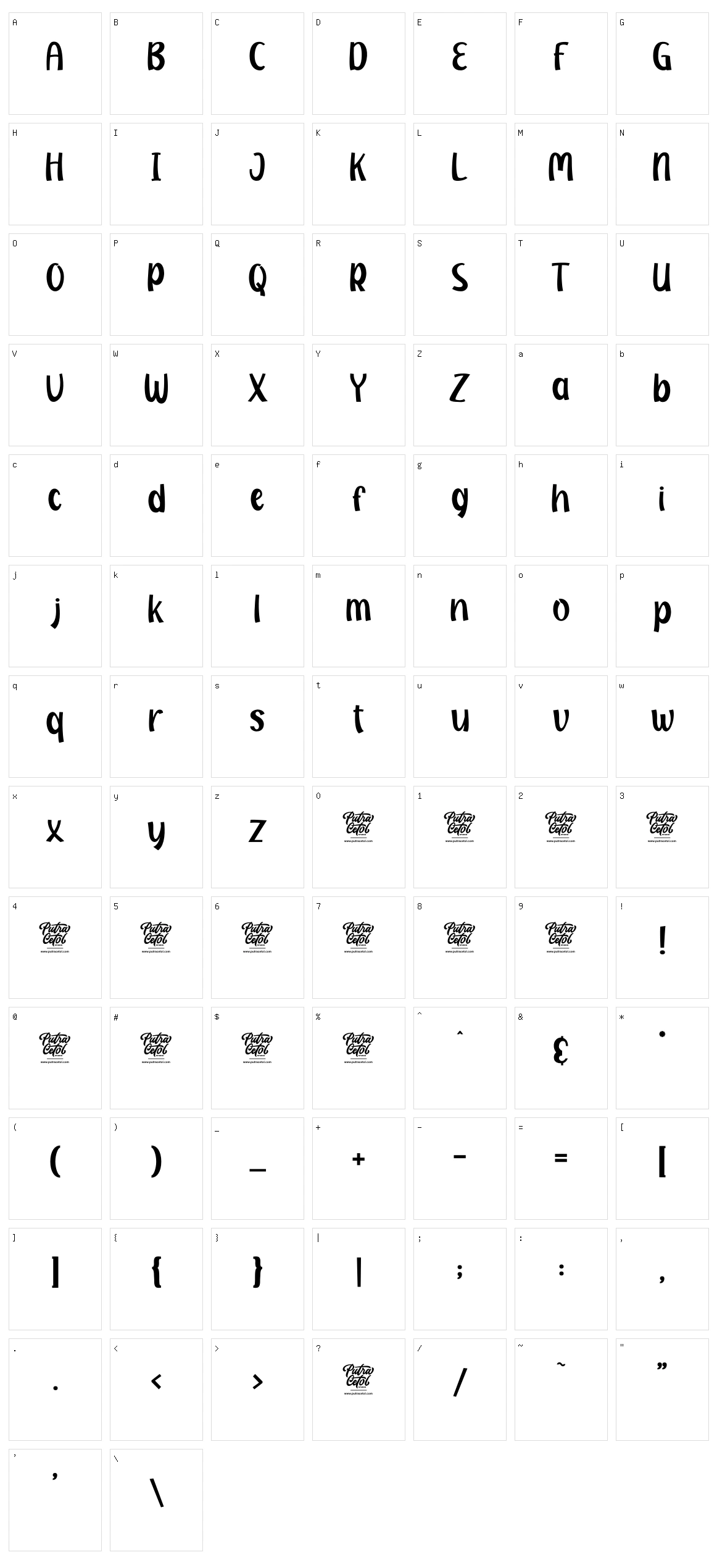
The free font My Hero Father is carefully designed by PutraCetol Studio, showcasing a thoughtful balance of creativity and usability and falls under the Cartoon font style. When you download the ZIP file, it contains only 526.44 KB of font files, making it lightweight and quick to download. Please review the license details below to understand permitted usage and distribution rights. If license information is not available, we recommend using this font for personal projects only or contacting the author directly for commercial usage permissions.